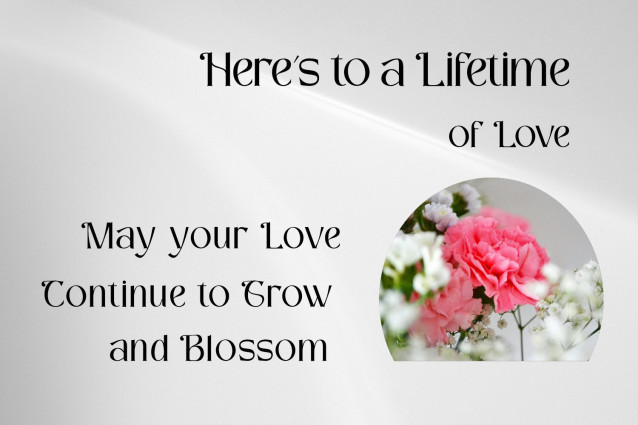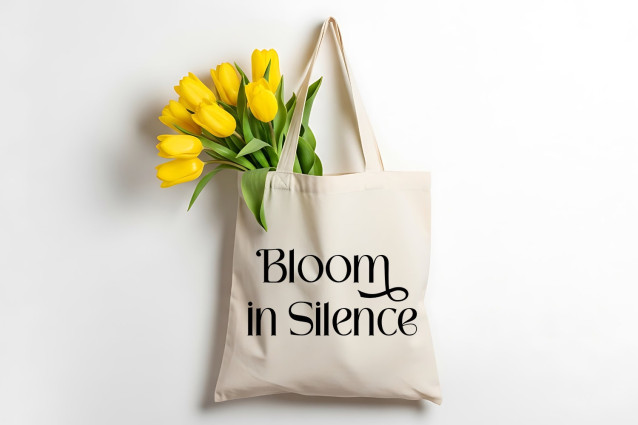
Reamond Font
Reamond Font is not just a font, it’s a statement. This sophisticated “Aesthetic Sans Serif” typeface perfectly captures the essence of luxury, elegance, and high-end design. With its delicate curves and dramatic decorative elements, Reamond is designed to make your branding unforgettable.